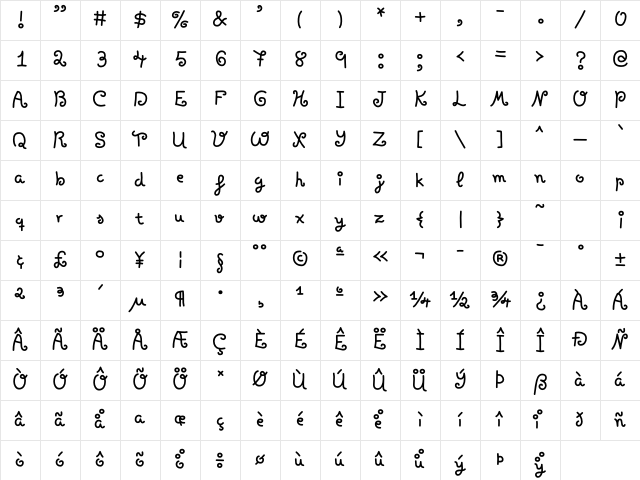
Fatty Regular
Design Context for Fatty Typeface
Fatty is a composed and adaptable typeface that performs quietly and consistently across a wide range of design contexts.